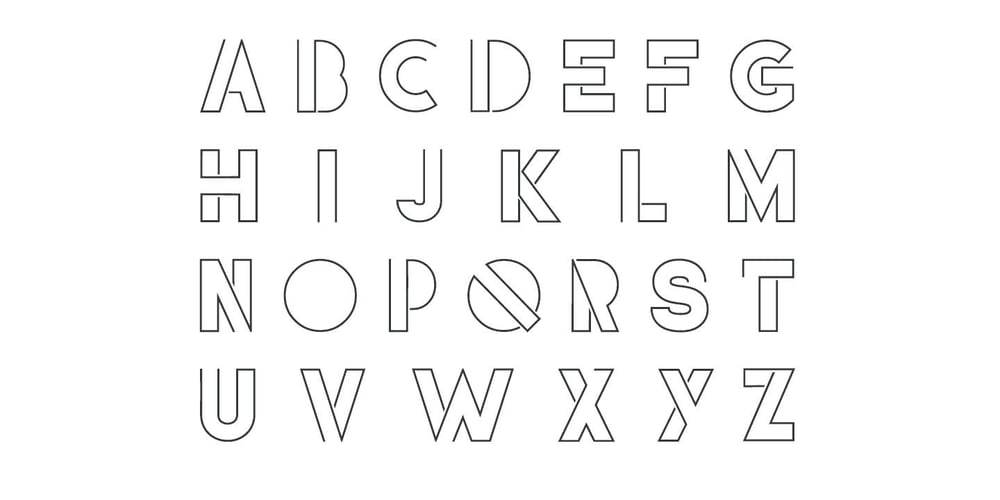
Divert Font Family was designed by Max Little and published by Little Fonts. Divert contains 1 styles and family package options. Based on the outline of each character, Divert works by re-directing each outline as a single meandering stroke that moves back and forth to create a quirky yet clean typeface. The typeface contains an uppercase character set plus two lowercase character sets (one standard and one alternate) and two sets of numerals. Plus all punctuation and basic latin European accents. See glyphs for full character set.